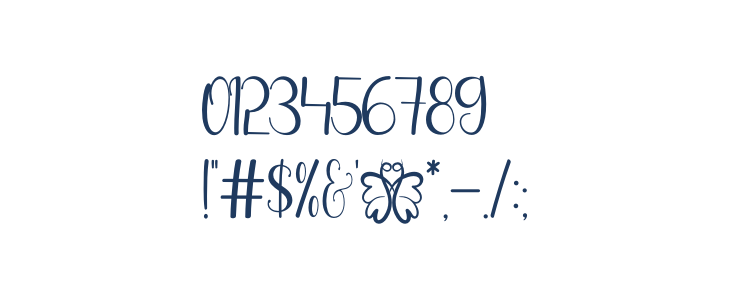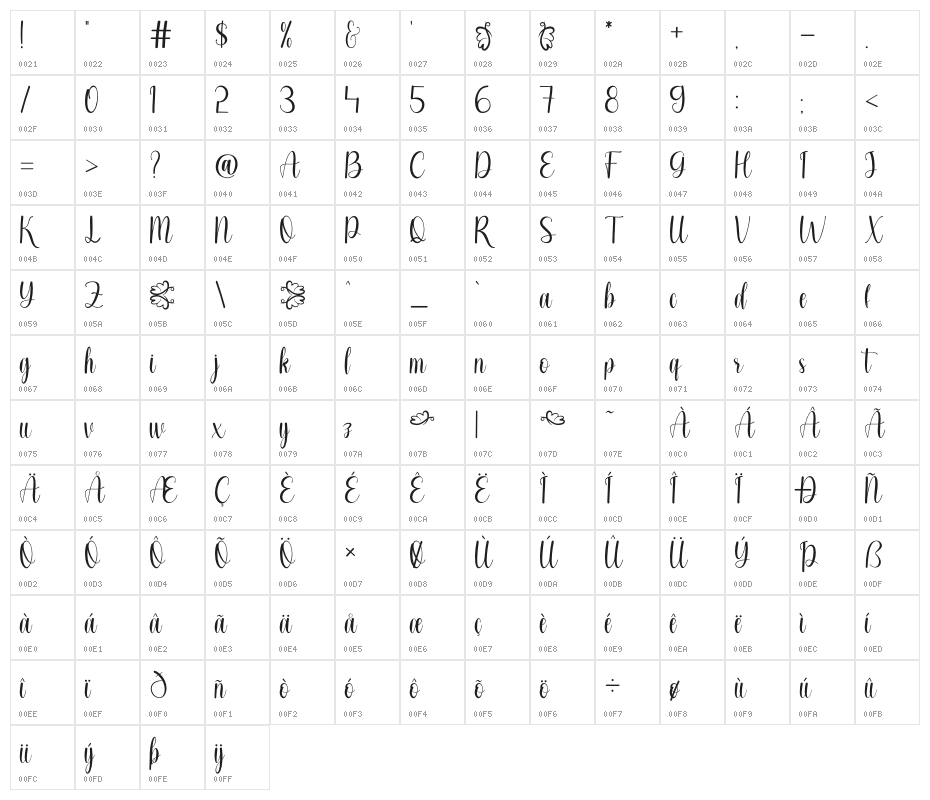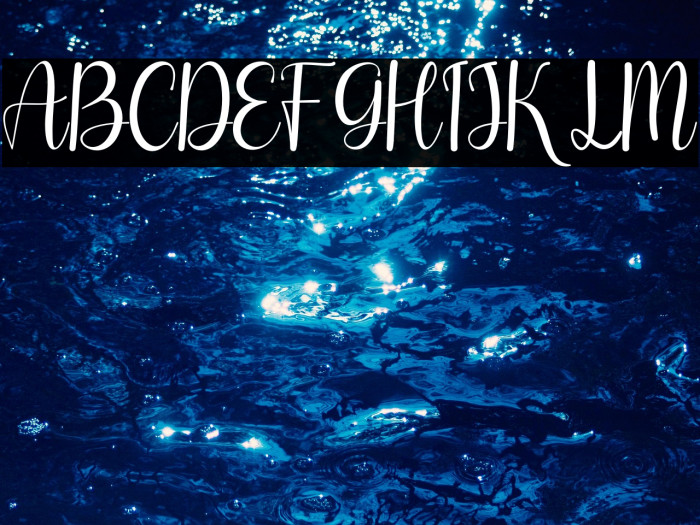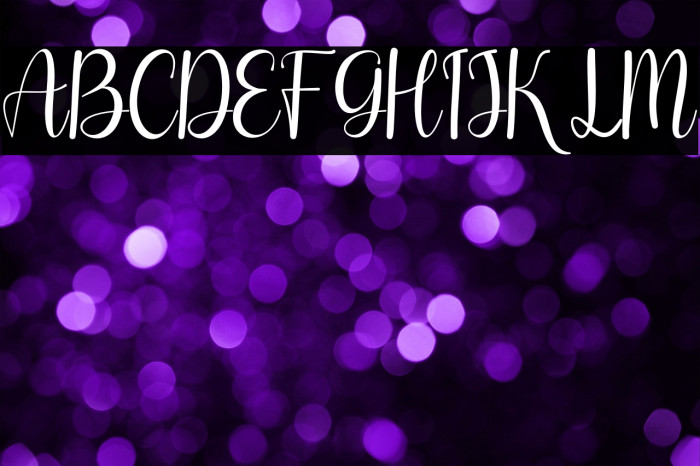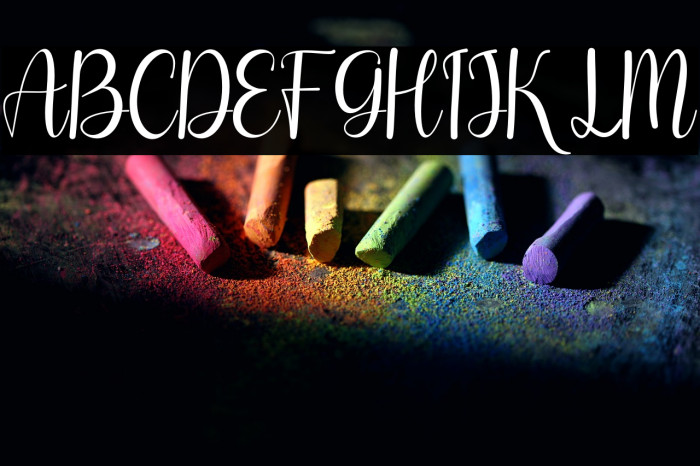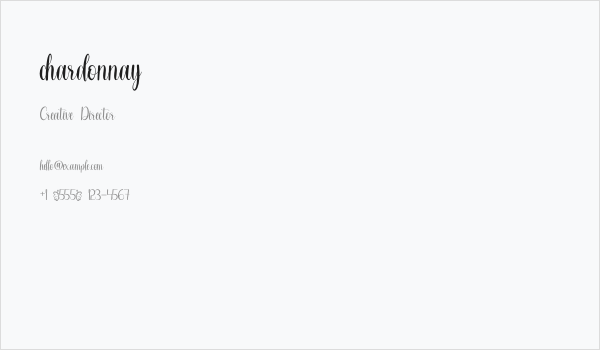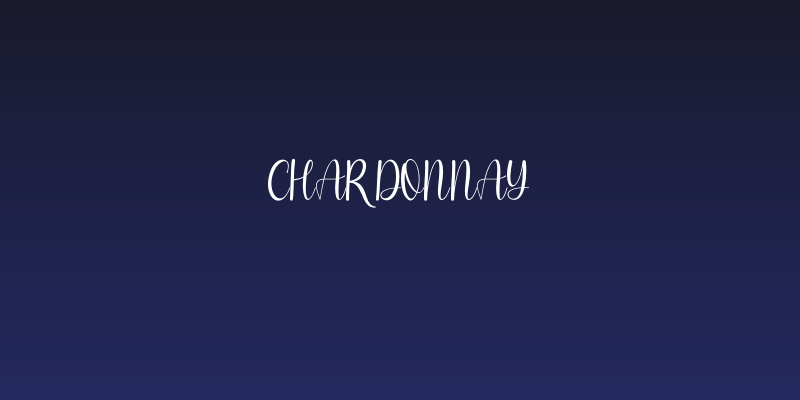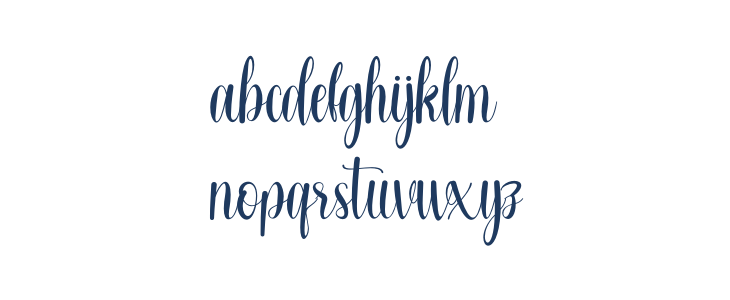
chardonnay Font
chardonnay Description
This font features an elegant and flowing script style, characterized by its smooth, cursive strokes and graceful curves. The uppercase letters are tall and slender, with a slight slant that adds a dynamic feel. Lowercase letters maintain a consistent flow, enhancing readability while retaining an artistic flair. The numerals are distinct and harmonize well with the overall design, offering a balance between style and functionality. Special characters are creatively integrated, adding a whimsical touch to the font. This typeface exudes sophistication and charm, making it suitable for a variety of creative applications.
Overall StyleElegant
Use CaseLogos, Invitations, Decorative Text
Proposed ProjectsIdeal for wedding invitations, elegant branding, greeting cards, and decorative signage.